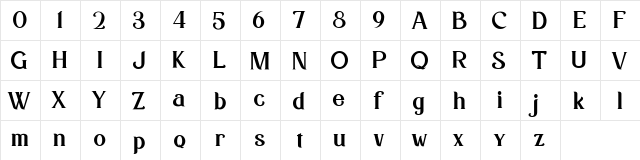
kafina Regular
| Designer | Donis Miftahudin |
Design Context for kafina Typeface
kafina offers clean, dependable letterforms without strong stylistic allegiance, making it a practical choice for designers who need flexibility.